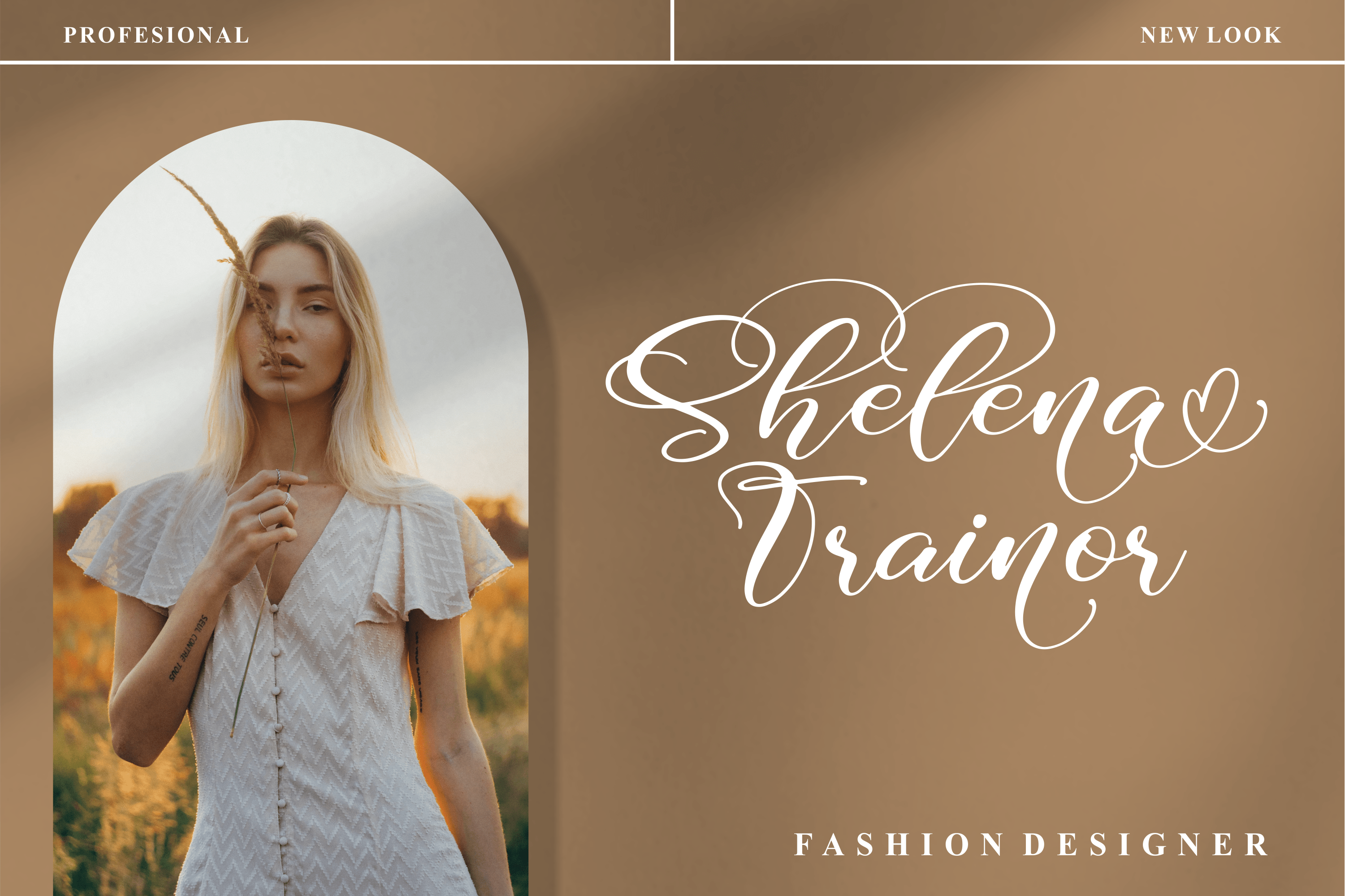
The Magistica Bright Font
The Magistica Bright Script Font
This is a beautiful script font, suitable for any projects such as: logos, branding projects, homeware designs, product packaging, mugs, quotes, posters, shopping bags, t-shirts, book covers, name card, invitation cards, greeting cards, label, photography, watermark, special events, and all your other lovely projects that need a beautiful script taste.